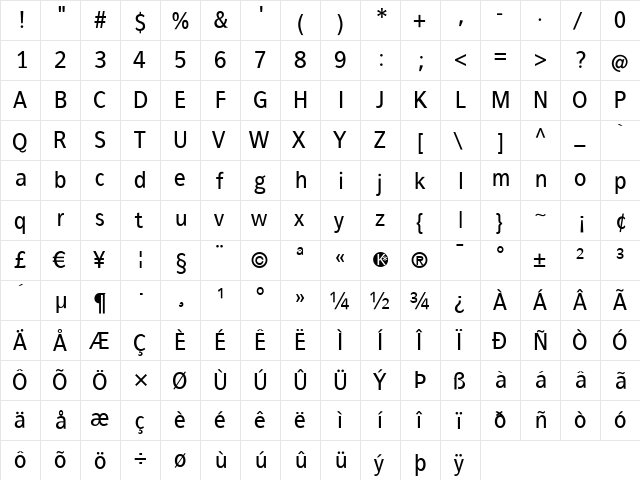
FrancophilSans Regular
Design Context for FrancophilSans Typeface
FrancophilSans offers clean, dependable letterforms without strong stylistic allegiance, making it a practical choice for designers who need flexibility.